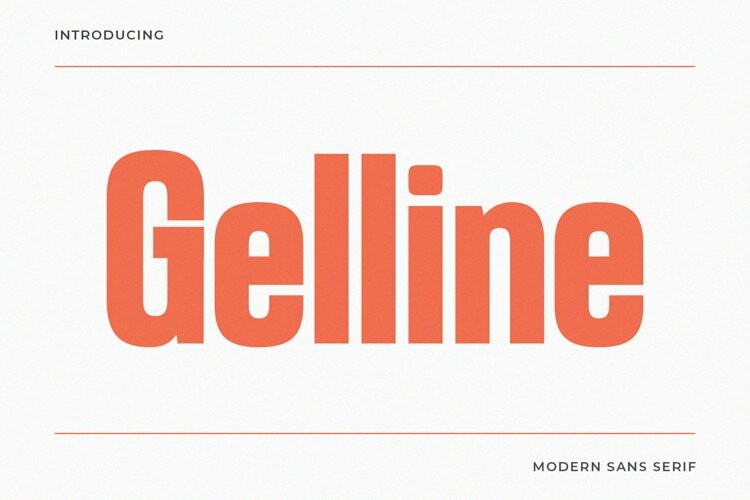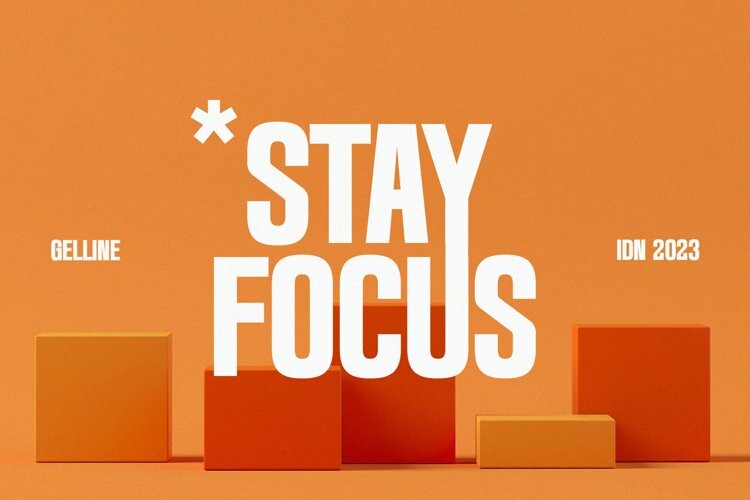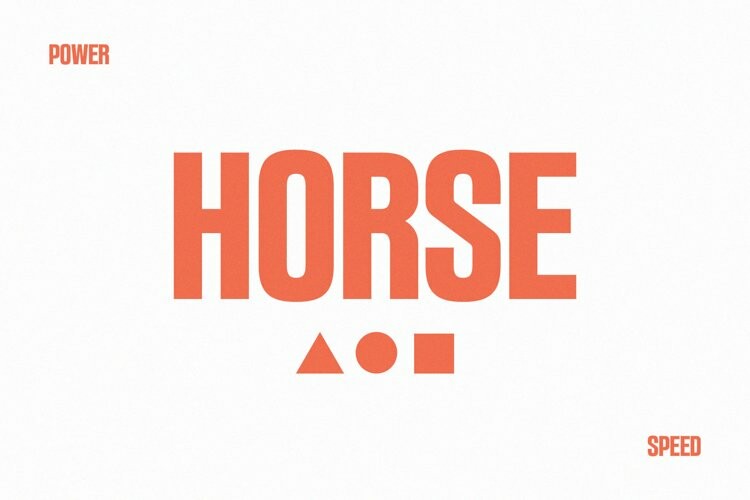
Gelline Font
Gelline FontGelline is a modern and simple font, best used as a display for headings, logos, branding, magazines, product packaging and invitations. Gelline come with clean lines and smooth curves give any project an extra touch of class.